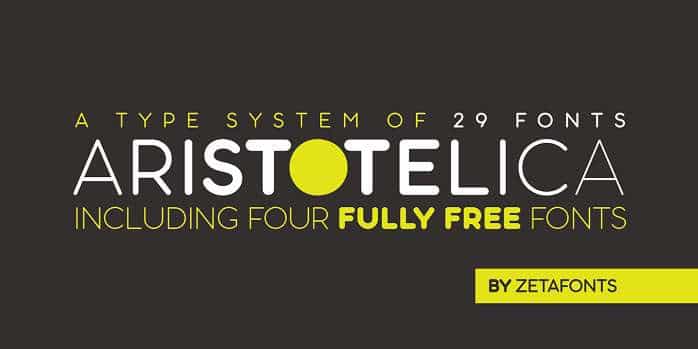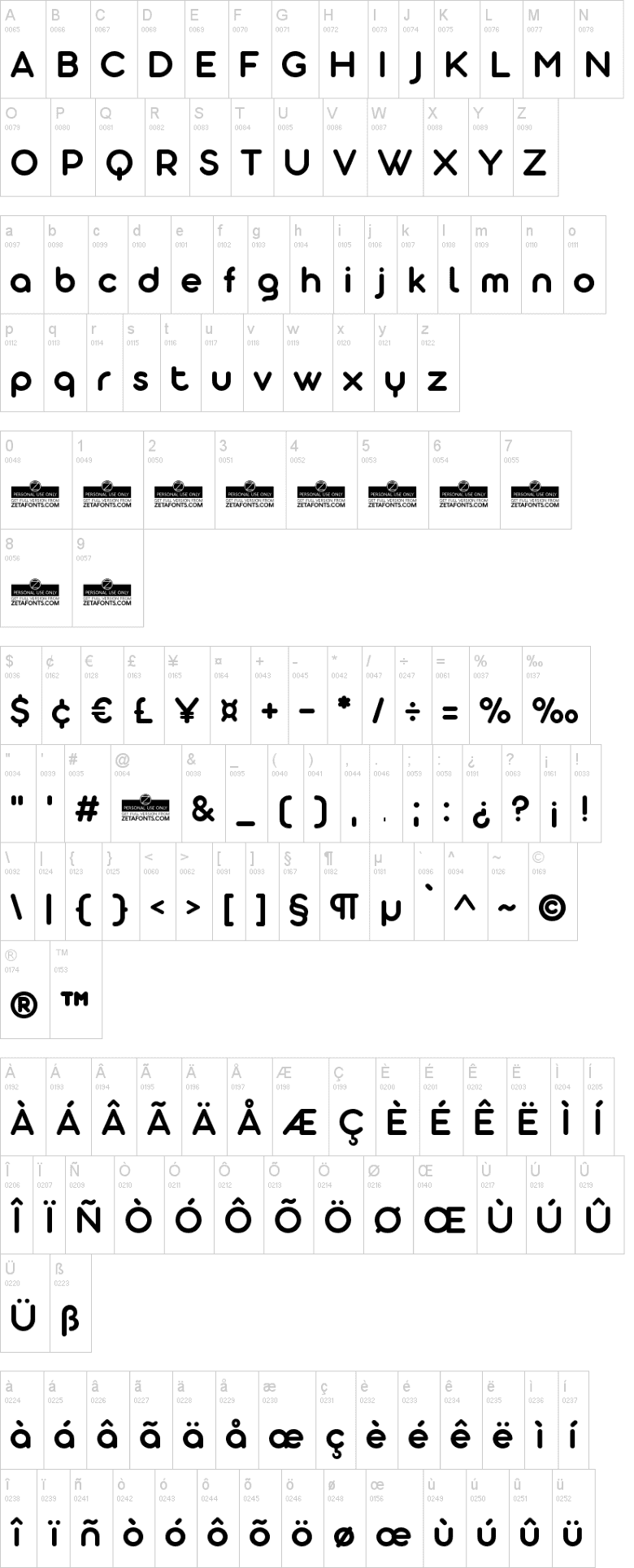
Aristotelica is characterized by simplicity and thinness of the letters, and its name refers to circles. Especially suitable for logo and display type projects, Aristotelica offers a large and diverse range of strokes including hairline weight in uppercase letters along with the softer but playful lowercase large weights.